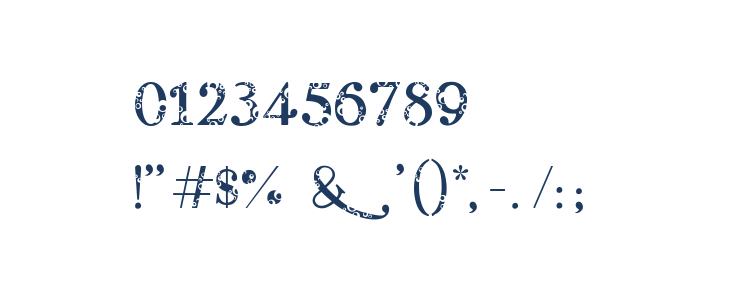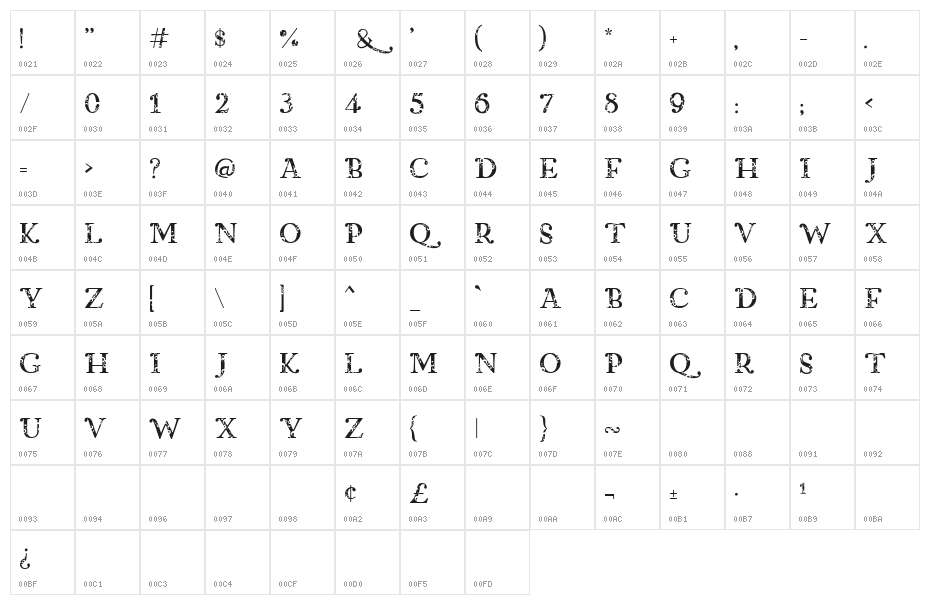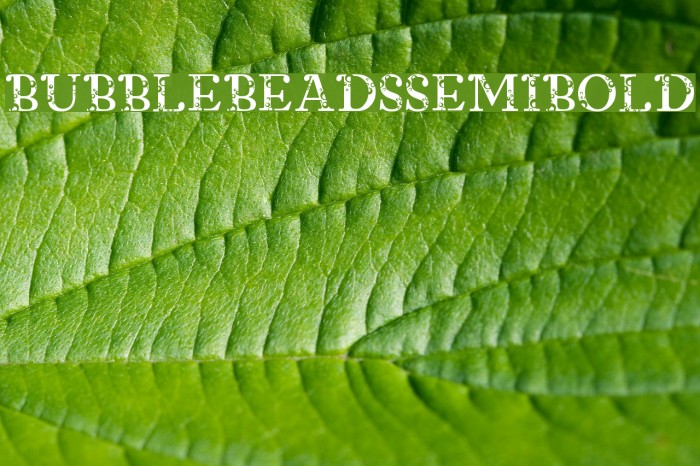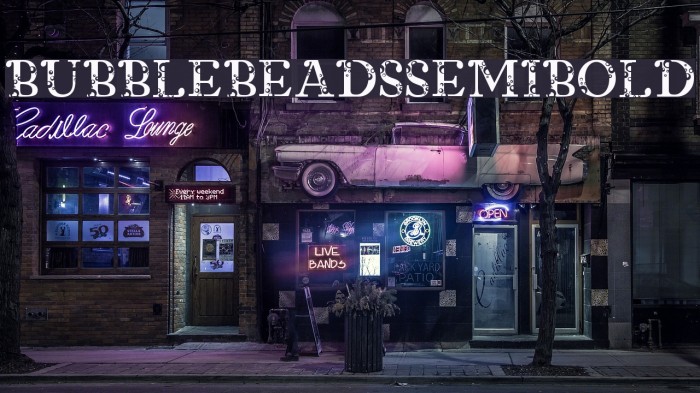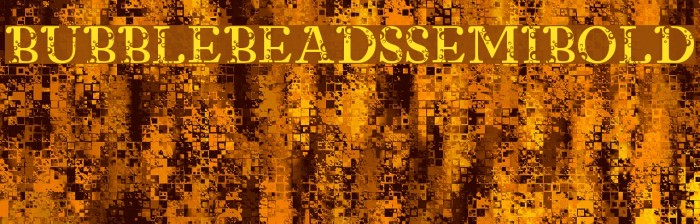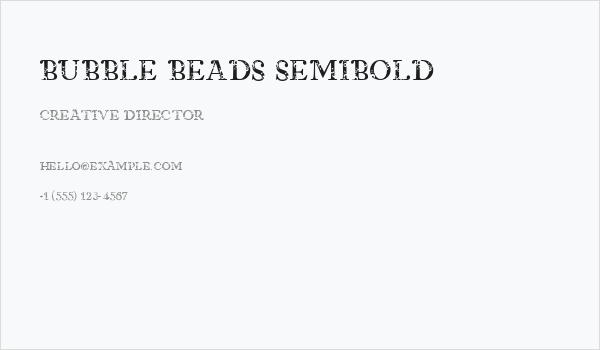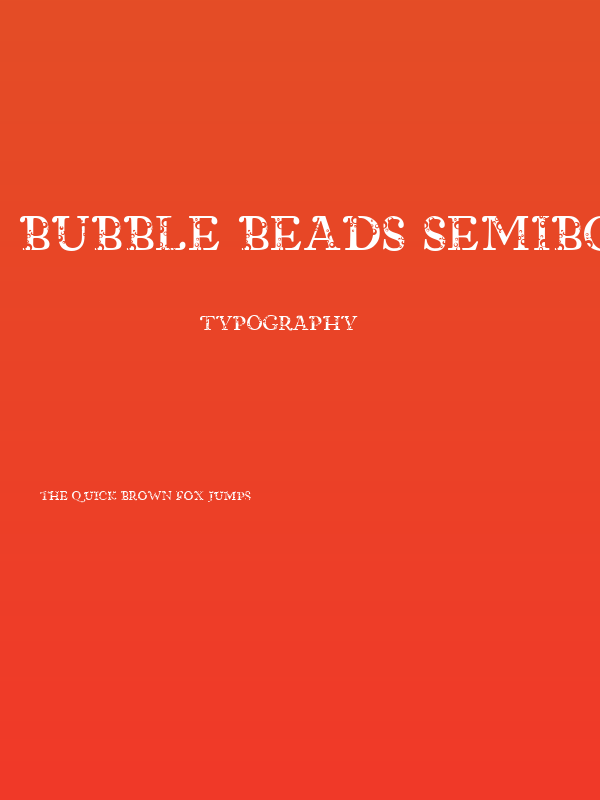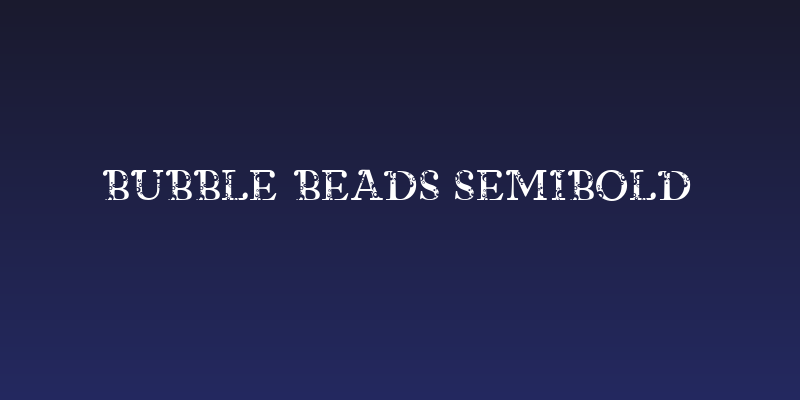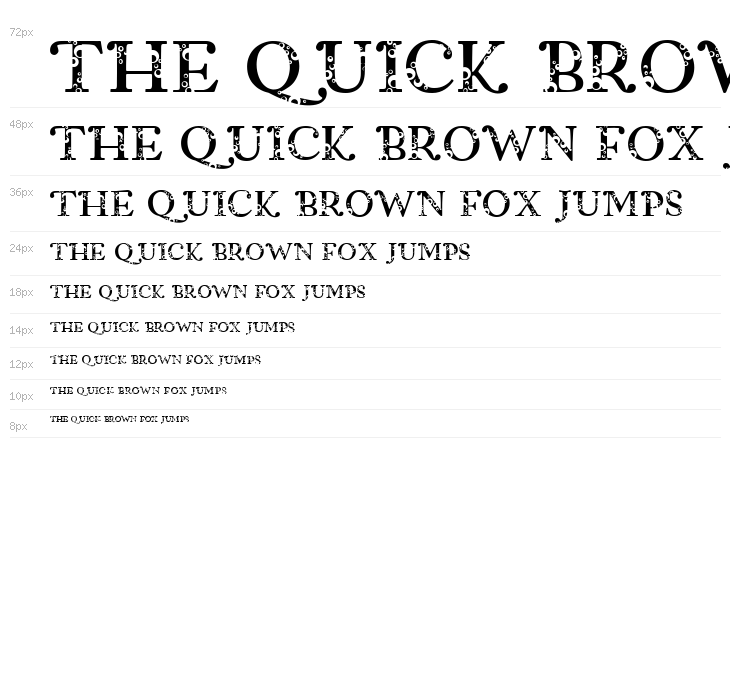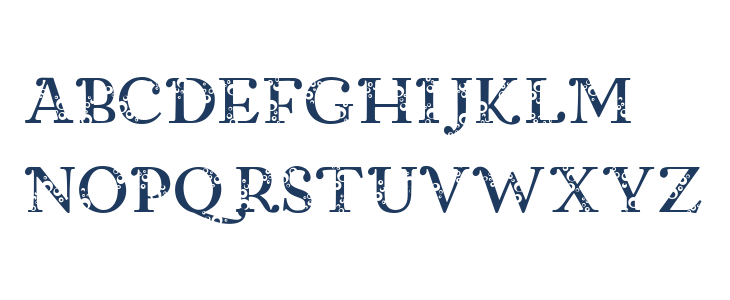
Bubble Beads SemiBold Font
Bubble Beads SemiBold Description
This font features a playful and decorative style with intricate bead-like embellishments within each character. The uppercase and lowercase letters, along with numerals and special characters, are adorned with circular patterns that add a whimsical touch. The design is bold and eye-catching, making it suitable for projects that require a unique and artistic flair. The font maintains a consistent weight throughout, ensuring readability despite its decorative elements.
| Proposed Projects | Ideal for children's book covers, playful branding, party invitations, and creative posters. |